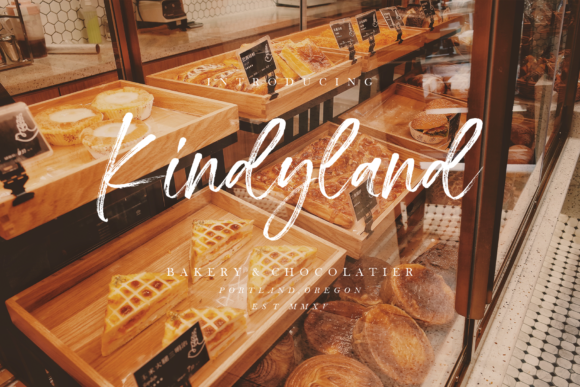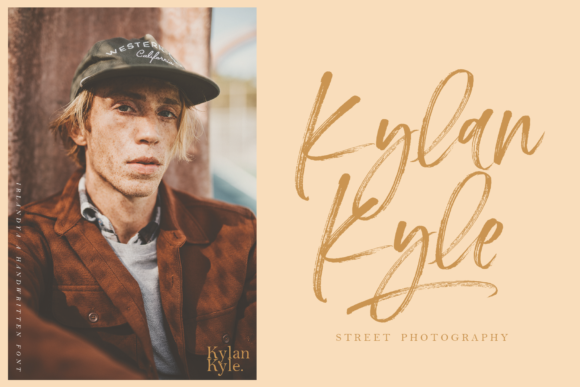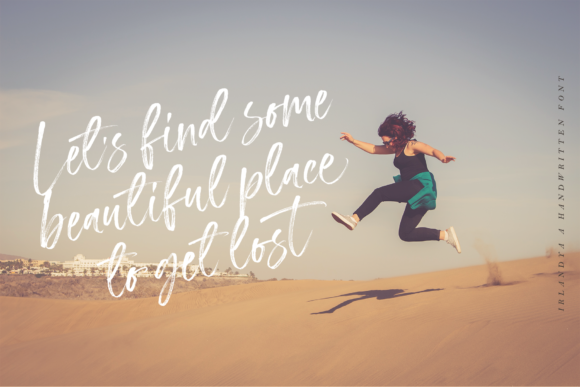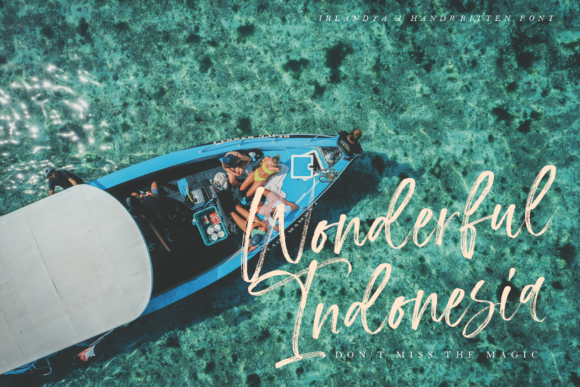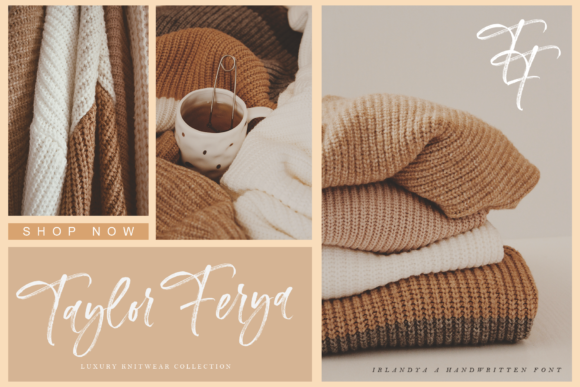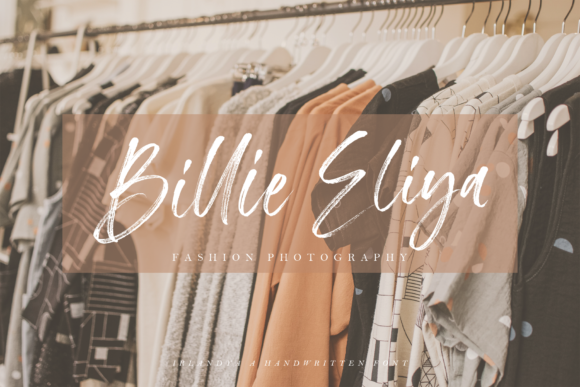
Introduction to Irlandya Font
Do you remember that moment when you stumbled upon a beautiful handwritten font that perfectly captured the essence of your creative project? For many designers, this moment is a game-changer, and it’s what makes Irlandya Font so special. This modern handwritten font, made in a brush style, has been making waves in the design community, and it’s not hard to see why.
Irlandya Font is a versatile design resource that can be used for a wide range of creative projects, from invitations and stationery to social media graphics and logos. Its high quality and unique style make it a valuable addition to any designer’s toolkit. And the best part? It’s available for free download, making it a transparent background for your imagination to shine through.
Key Features of Irlandya Font
- High-quality, hand-drawn design ideal for creative projects and illustrations.
- Transparent background option allows for seamless integration into various design compositions.
- Font size: scalable, with a recommended size range of 12-48 points for optimal legibility.
- Unique, whimsical design elements and flourishes add a touch of personality to any creative project.
Honest Review: Irlandya Font
As a designer, I’m always on the lookout for high-quality fonts to elevate my creative projects. Recently, I stumbled upon the Irlandya Font, and I must say, it’s been a game-changer for me.
What works well with this font is its unique blend of modern and traditional elements. The Irlandya Font is perfect for designers who want to create a distinctive look for their projects. The font is available for free download, making it an excellent design resource for anyone looking to add some flair to their work.
- ✨ Unique design aesthetic
- ✨ Perfect for creative projects
- ✨ Transparent background makes it easy to work with
However, I did encounter a few limitations. The font is not suitable for small text sizes, and it can be quite heavy, which might not be ideal for projects where space is limited.
Overall, I’m impressed with the Irlandya Font. Its high-quality design and free availability make it a valuable addition to any designer’s toolkit. While it may have some limitations, it’s definitely worth considering for your next creative project.
Tips for Getting the Most Out of Irlandya Font
Use Irlandya Font with a transparent background to create a unique and eye-catching design. You can also experiment with different font sizes and styles to add depth and interest to your project.
Irlandya Font is perfect for designing invitations, posters, and social media graphics. Its high-quality design makes it a great resource for creative projects that require a professional touch.
Alternatives to Irlandya Font
Great Vibes Font is a high-quality, handwritten font perfect for creative projects that require a touch of elegance. It’s available for free download and is ideal for design resources like quotes, invitations, and posters. The transparent background of this font makes it easy to use on any design.
Great Vibes Font is similar to Irlandya Font in its cursive style, but it has a more refined and sophisticated look. It’s ideal for projects that need a more professional touch.
Alex Brush Font is a beautiful, handwritten font that’s perfect for creative projects that require a touch of whimsy. It’s available for free download and is ideal for design resources like quotes, invitations, and posters. The transparent background of this font makes it easy to use on any design.
Alex Brush Font is similar to Irlandya Font in its cursive style, but it has a more organic and natural look. It’s ideal for projects that need a more playful and creative touch.